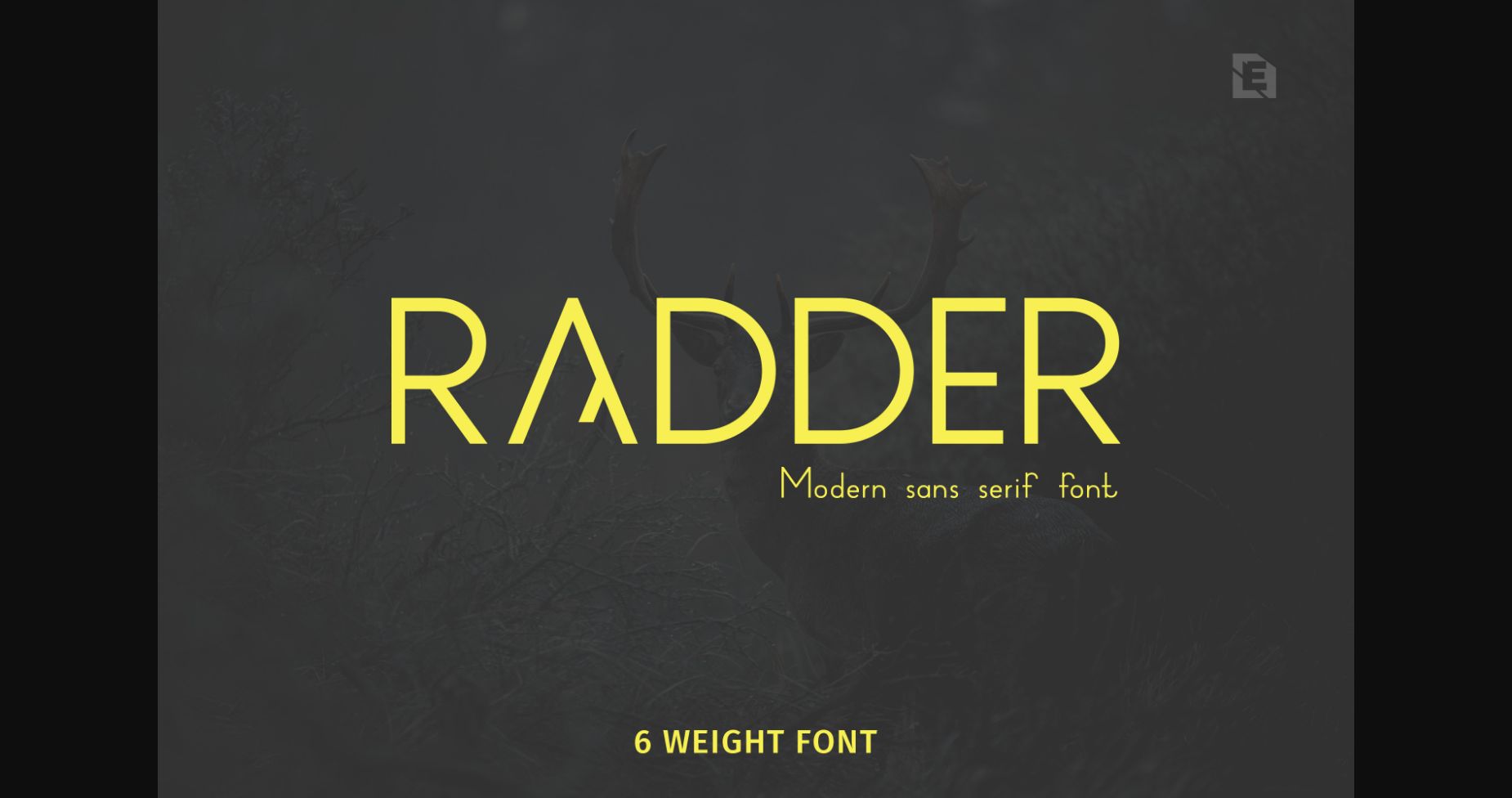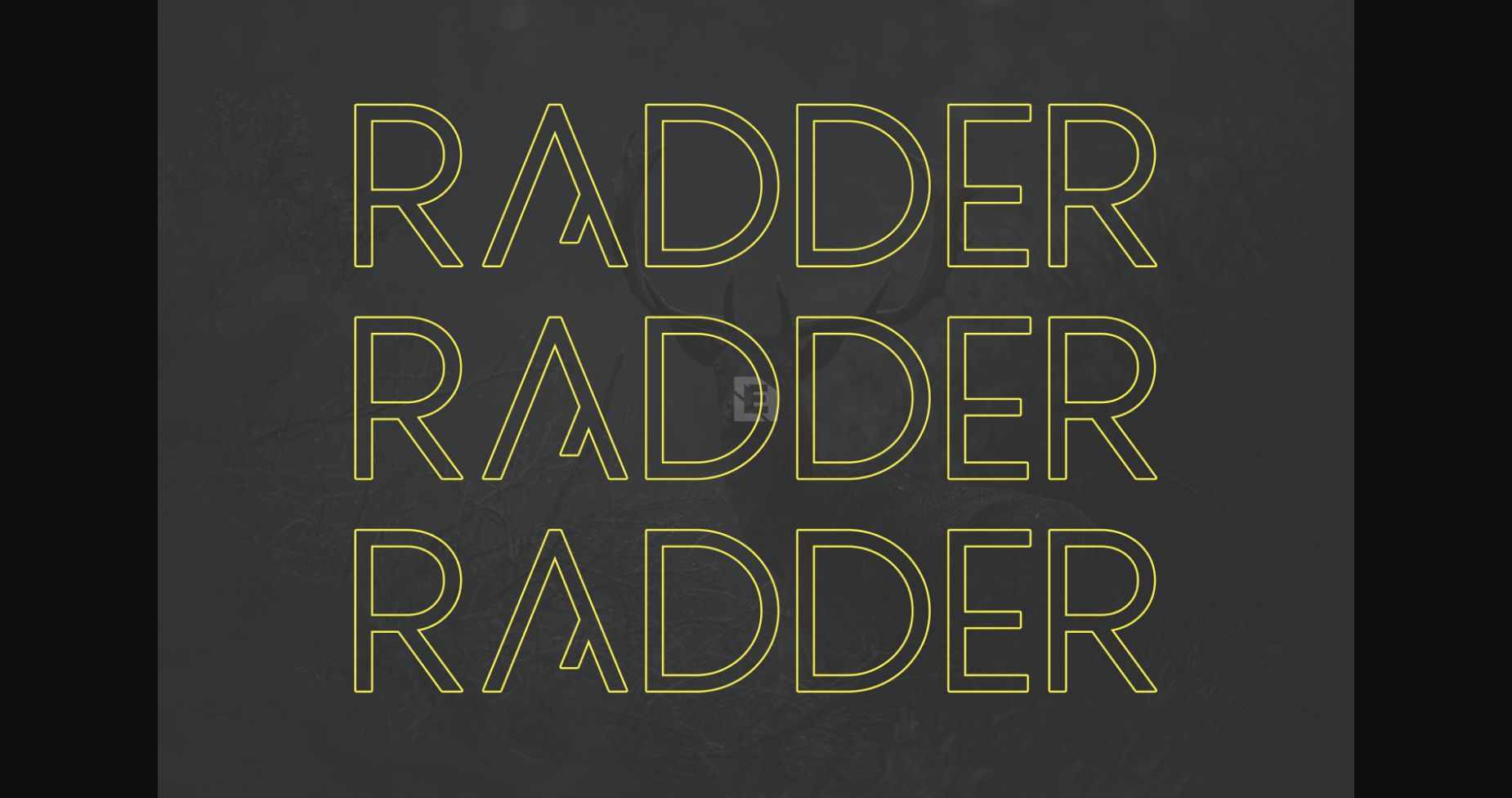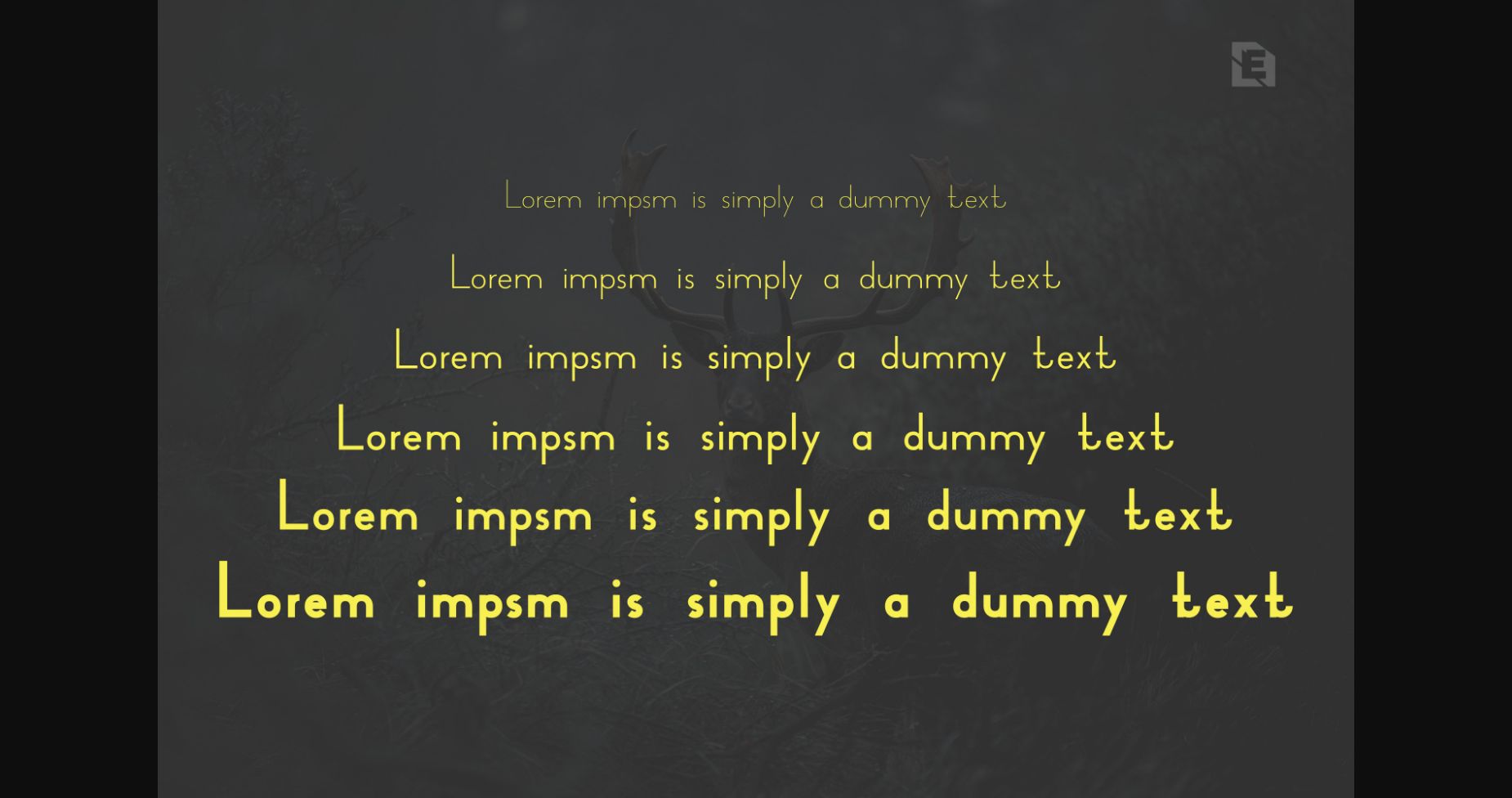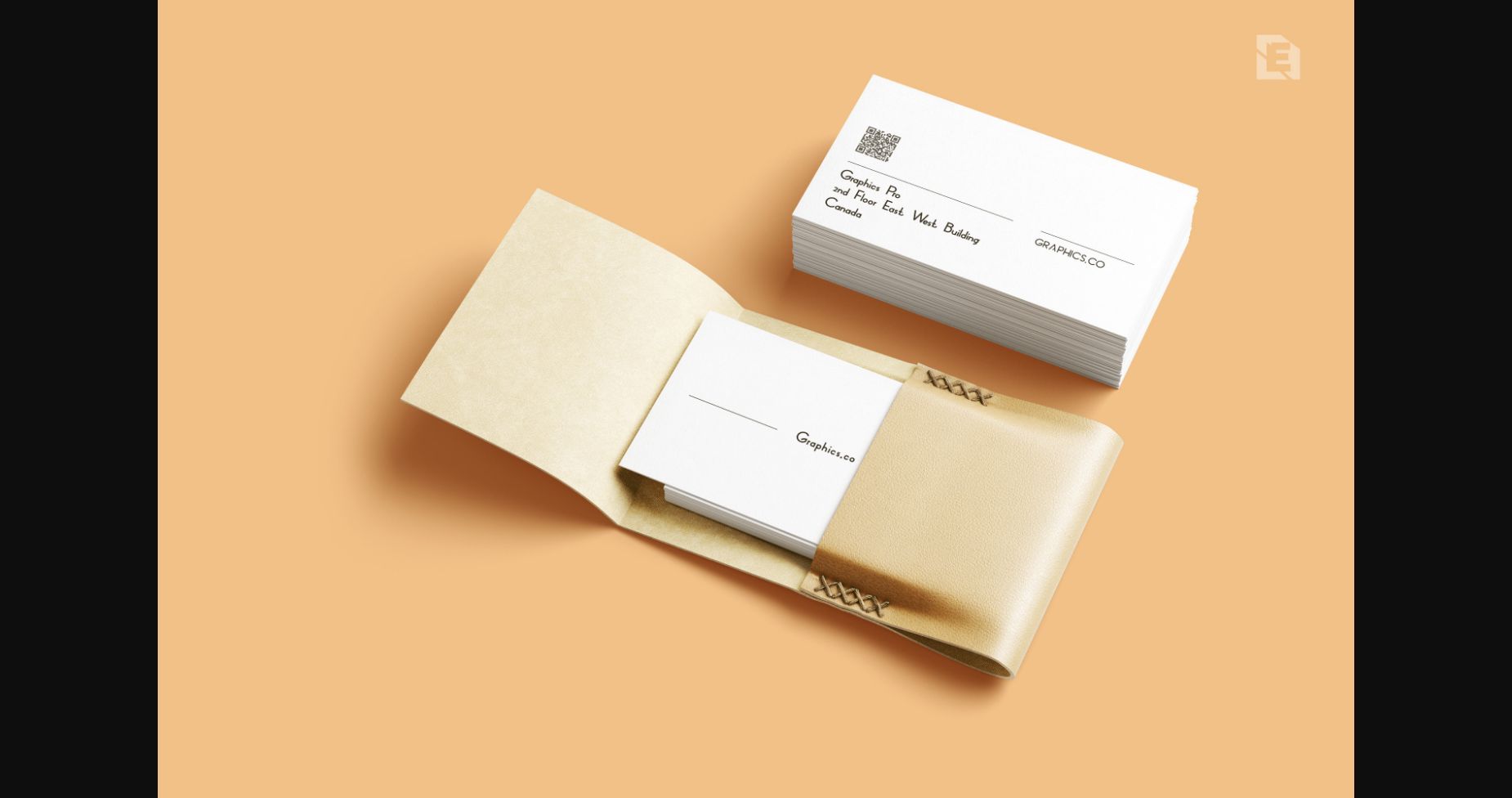
About Radder Font
Radder is a modern and thin lettered sans serif font. Suitable to a wide variety of designs due to its neat and simple style, this font has the potential to become your favorite go-to font, no matter the occasion!